BEST 10 MOST WANTED BLACK METAL FONTS
You probably already know — the world is full of metal fonts. From sharp, chaotic typefaces made for band logos to gritty textures used in merch, posters, and album covers. But among the sea of brutal styles, only a few truly stand out.
So today, we’re diving into the 10 best black metal fonts that capture the true essence of darkness, despair, and raw visual power.
10. Bloody Durian Sick Deathmetal Font
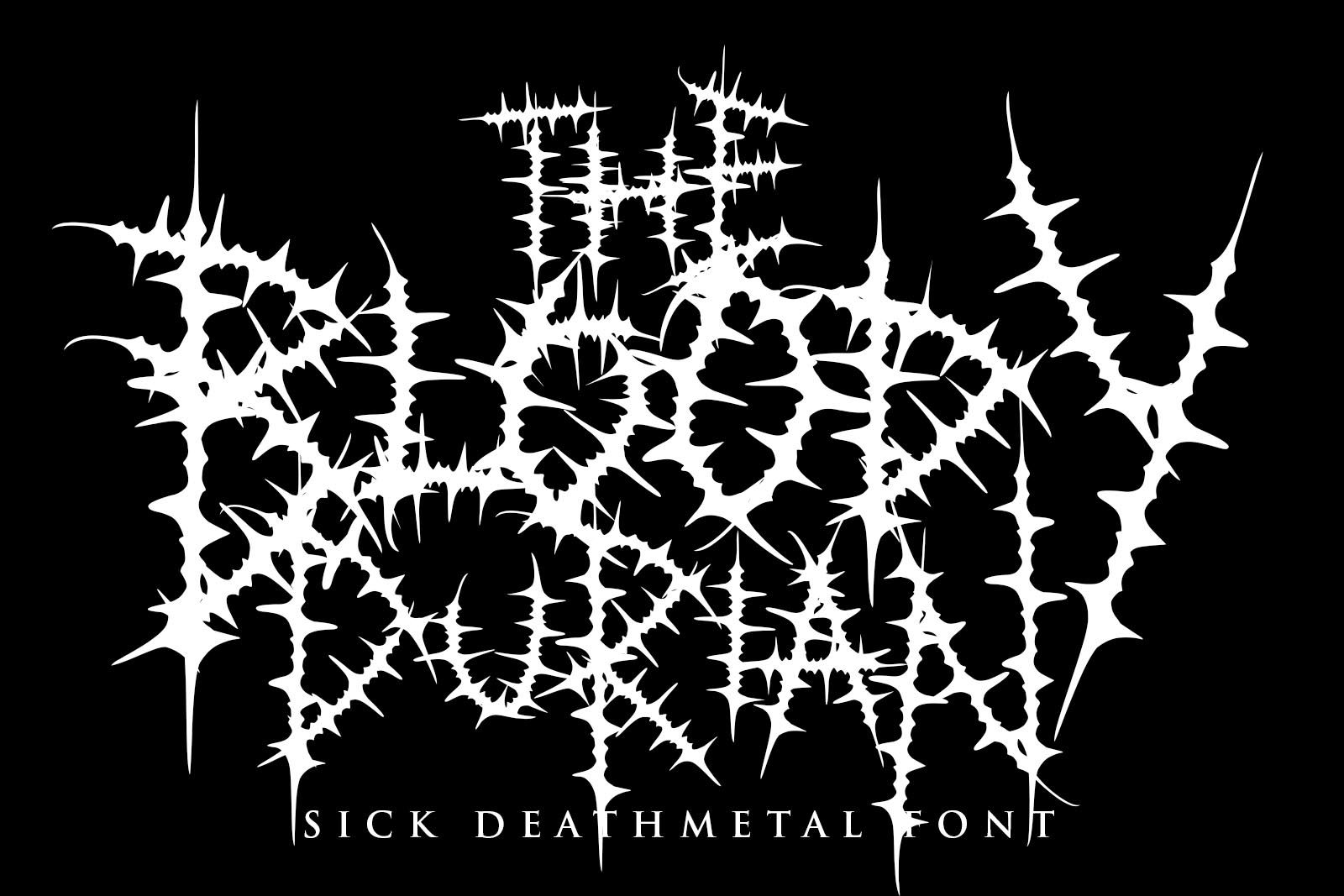
9. Black Monster
8. Punish Sinner
7. Sadistic Murder
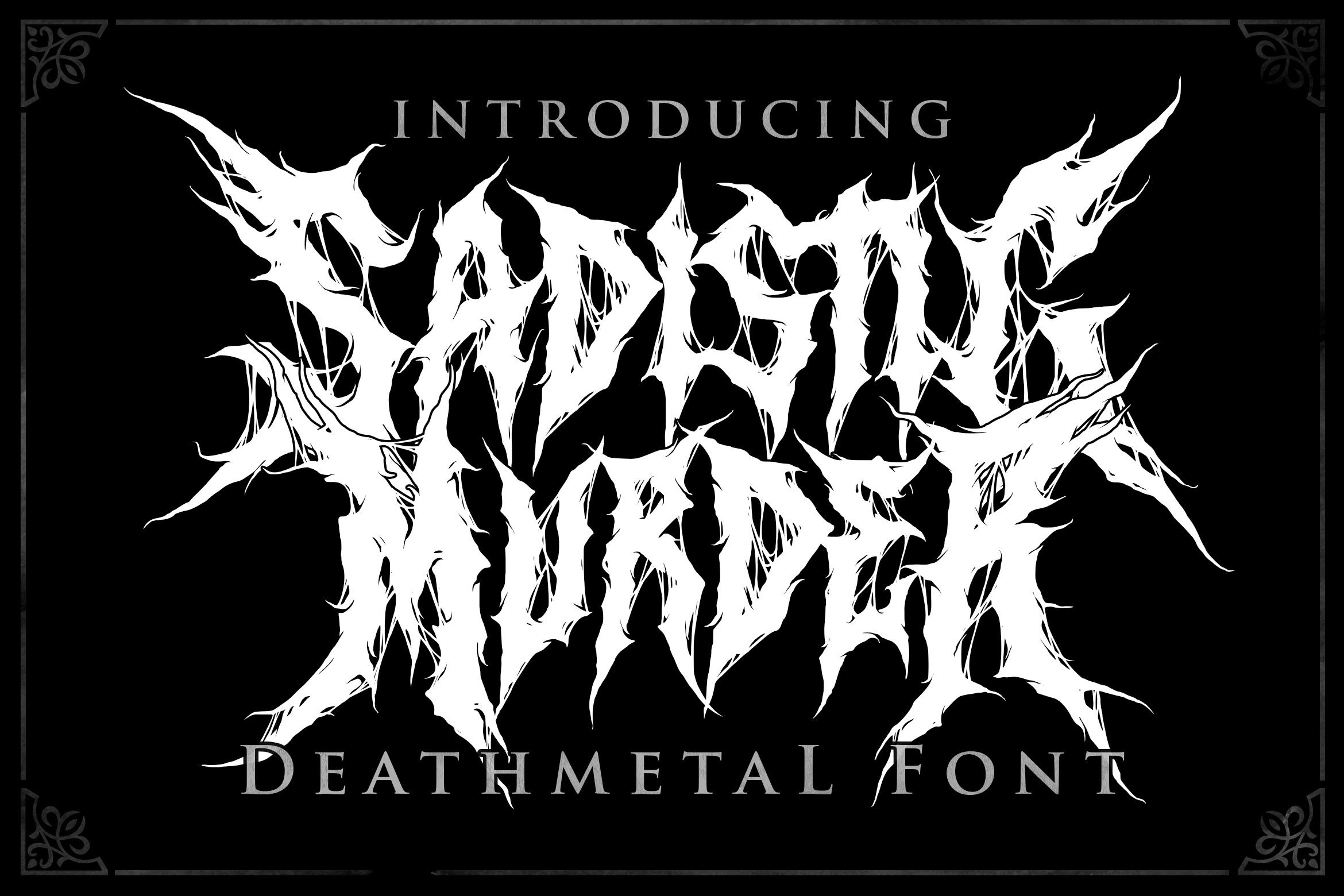
6. Base Metal
5. Sadness Logotype Metal Font
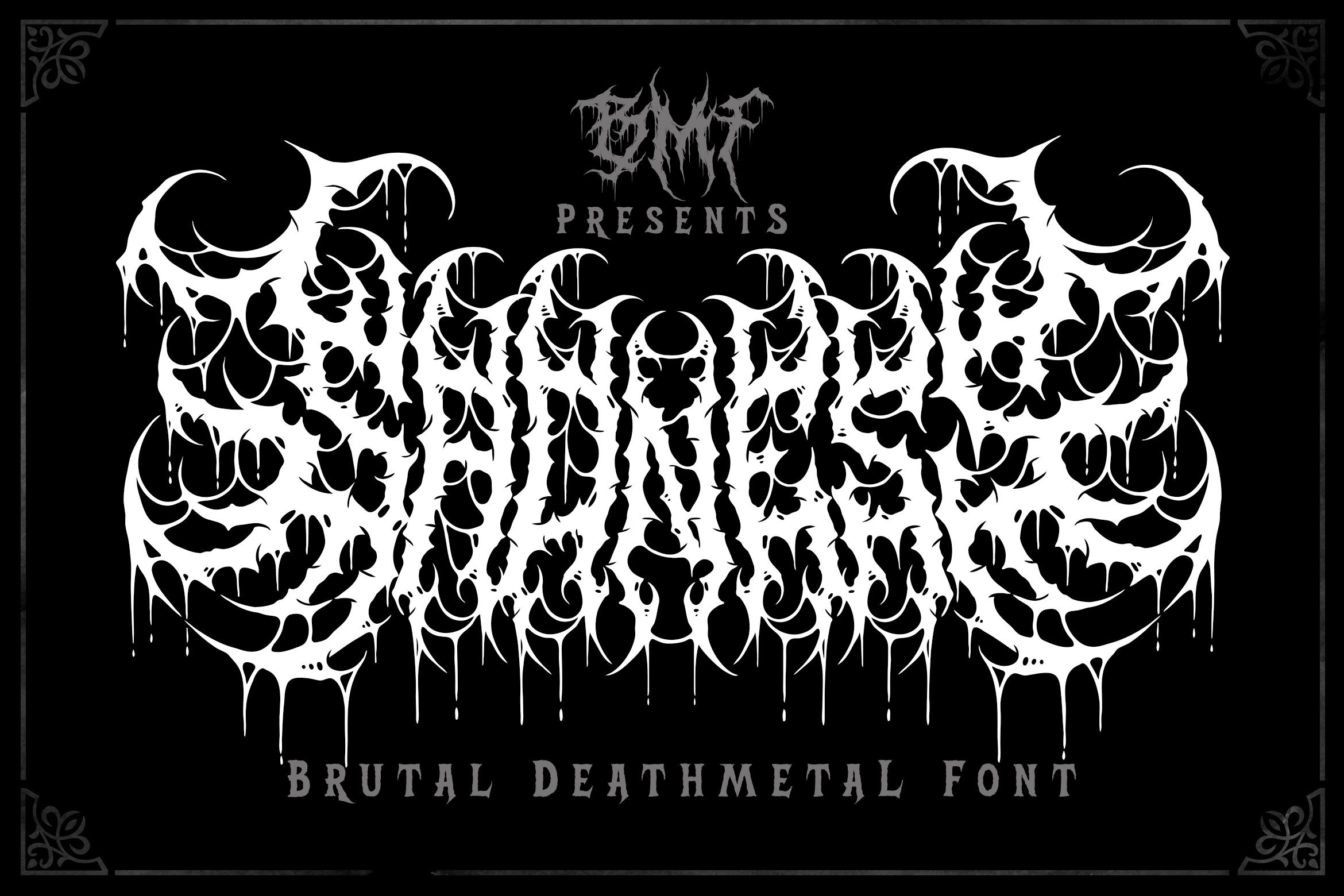
4. Satan Hunter
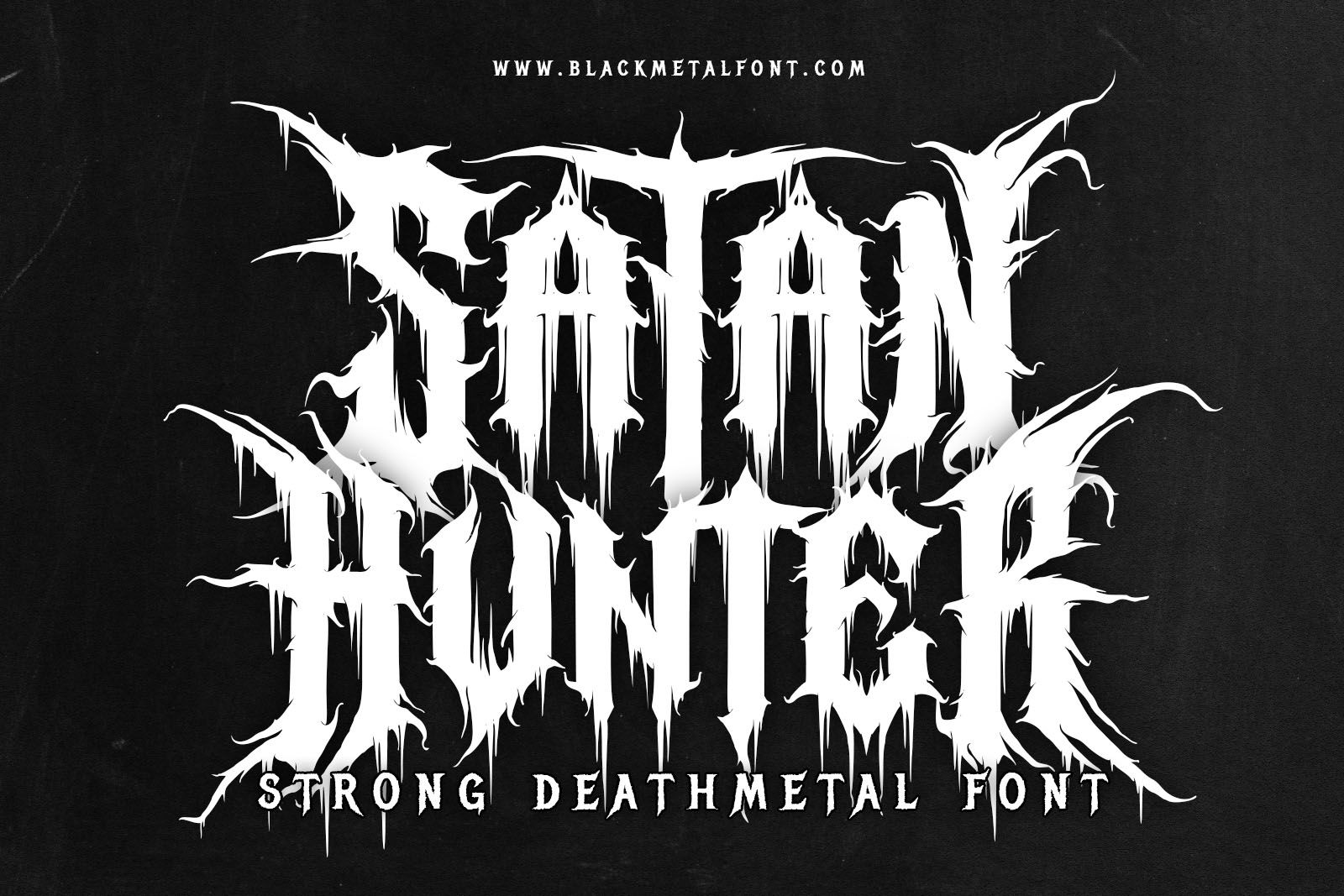
3. Something in The Graveyard
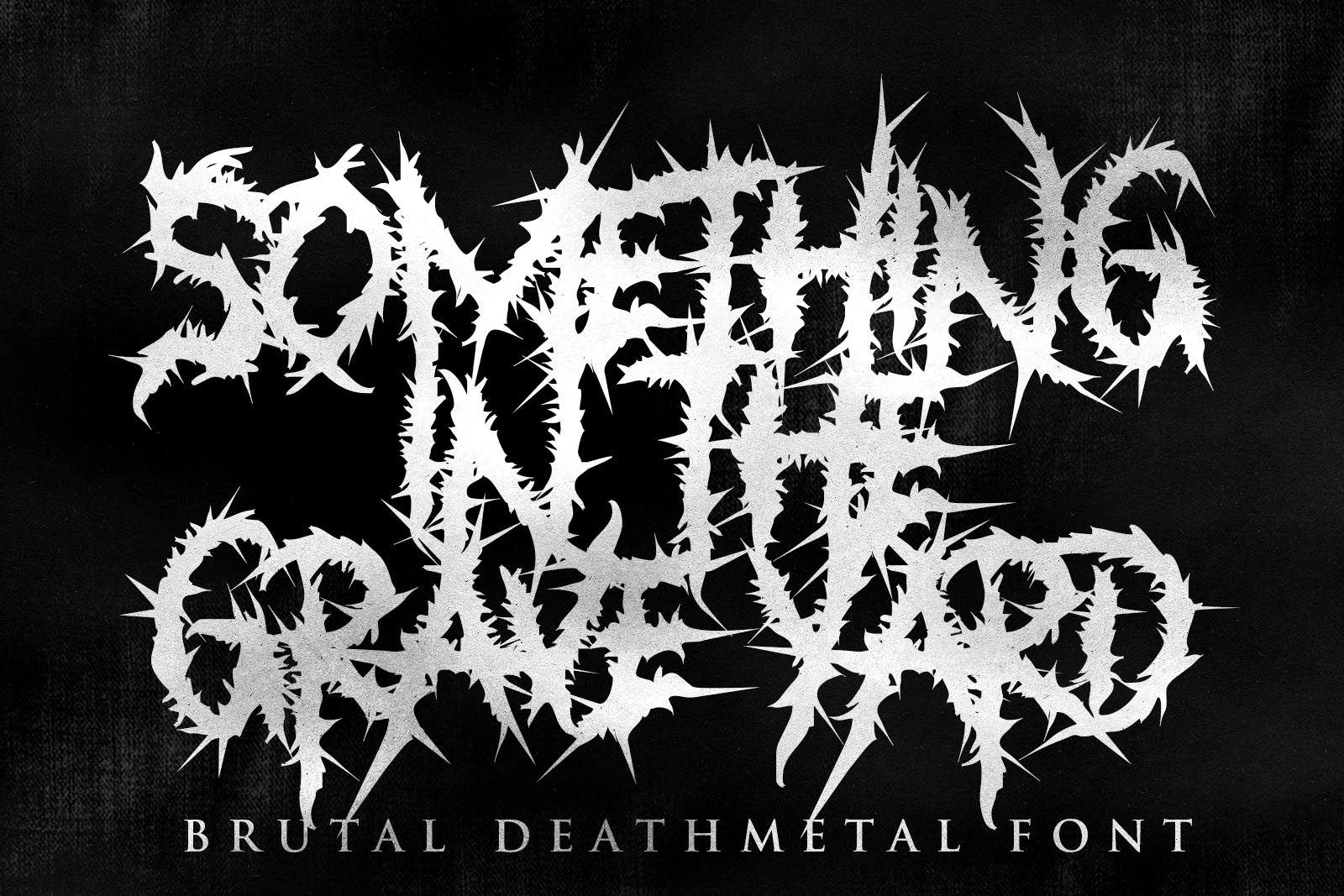
2. Midgnidht Grave
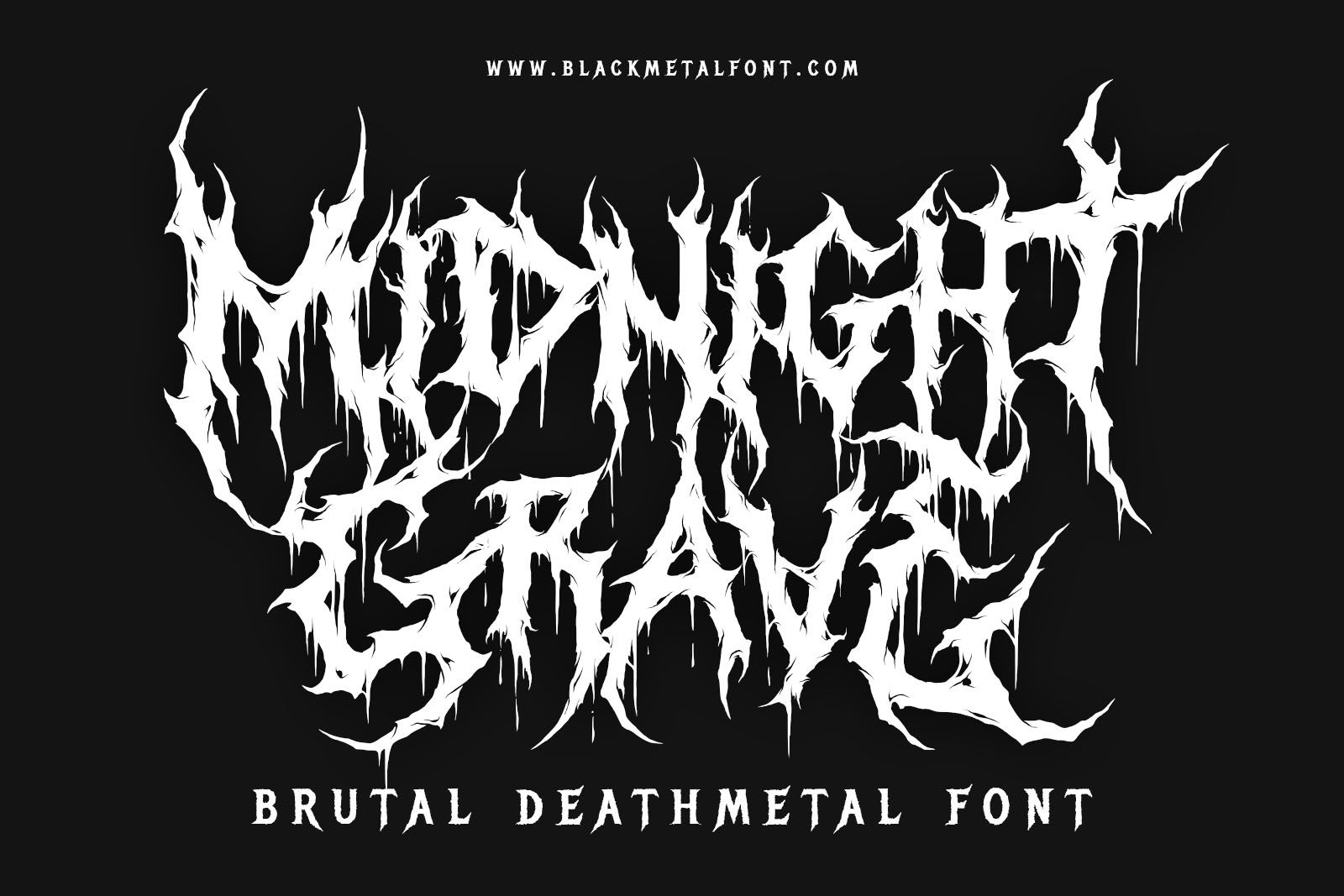
1. Heartless Blackmetal Font
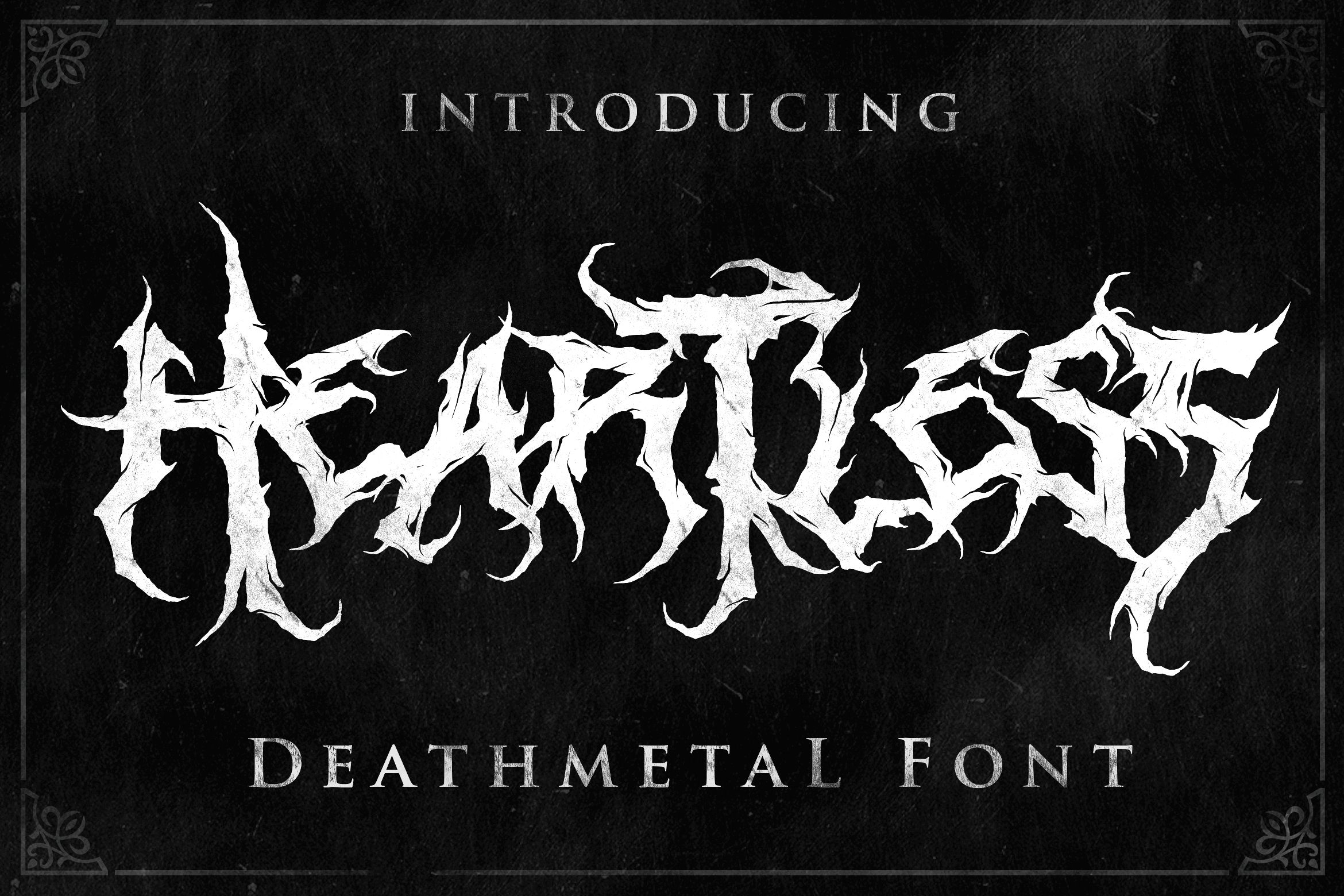
Either way, one thing’s clear: a killer font can summon the soul of your band before the first riff even hits.